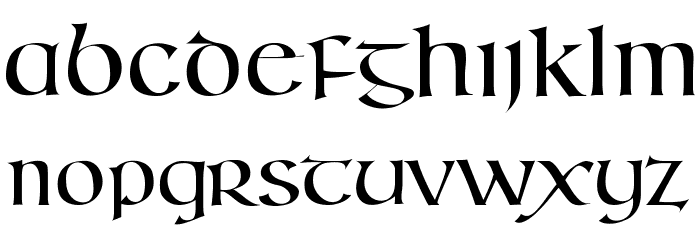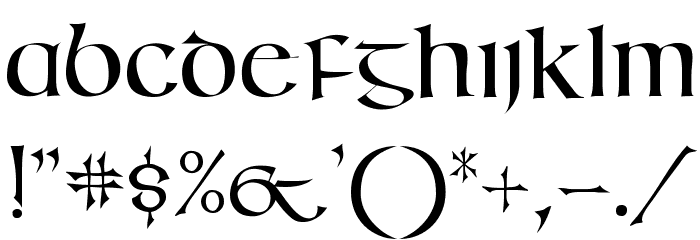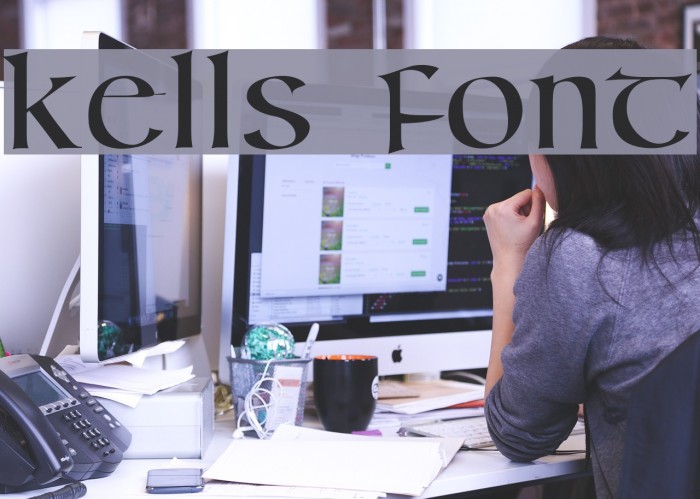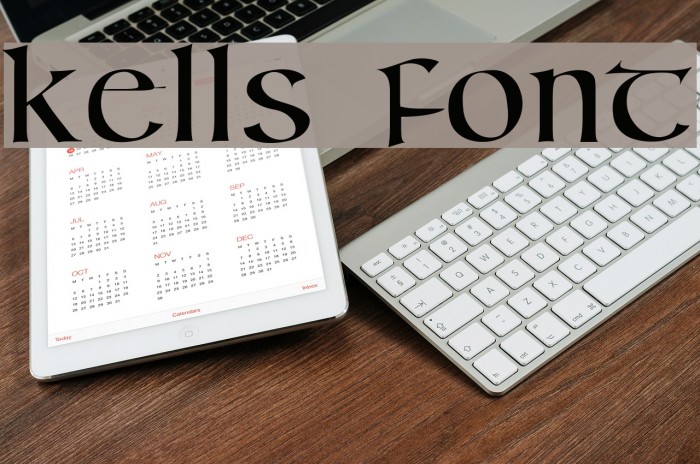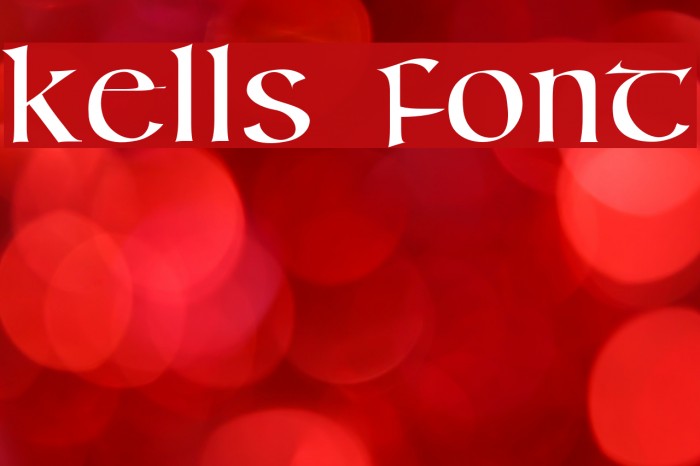
Kells Font
This font features a distinctive and elegant style reminiscent of traditional calligraphy with a modern twist. The characters exhibit sharp, angular strokes and a slight flourish, giving them a dynamic and sophisticated appearance. The uppercase letters are bold and commanding, while the lowercase letters maintain a consistent flow with subtle variations in stroke width. The numerals and special characters are crafted with the same attention to detail, ensuring a cohesive look across all glyphs. This font's unique style makes it suitable for projects that require a touch of elegance and historical flair.
A modern calligraphic font with sharp, angular strokes and elegant flourishes.
- Proposed Projects: Ideal for wedding invitations, historical-themed designs, book covers, and branding that requires a classic yet modern touch.
- Overall Style: Classic
- Use Case: Logos, Invitations, Decorative text